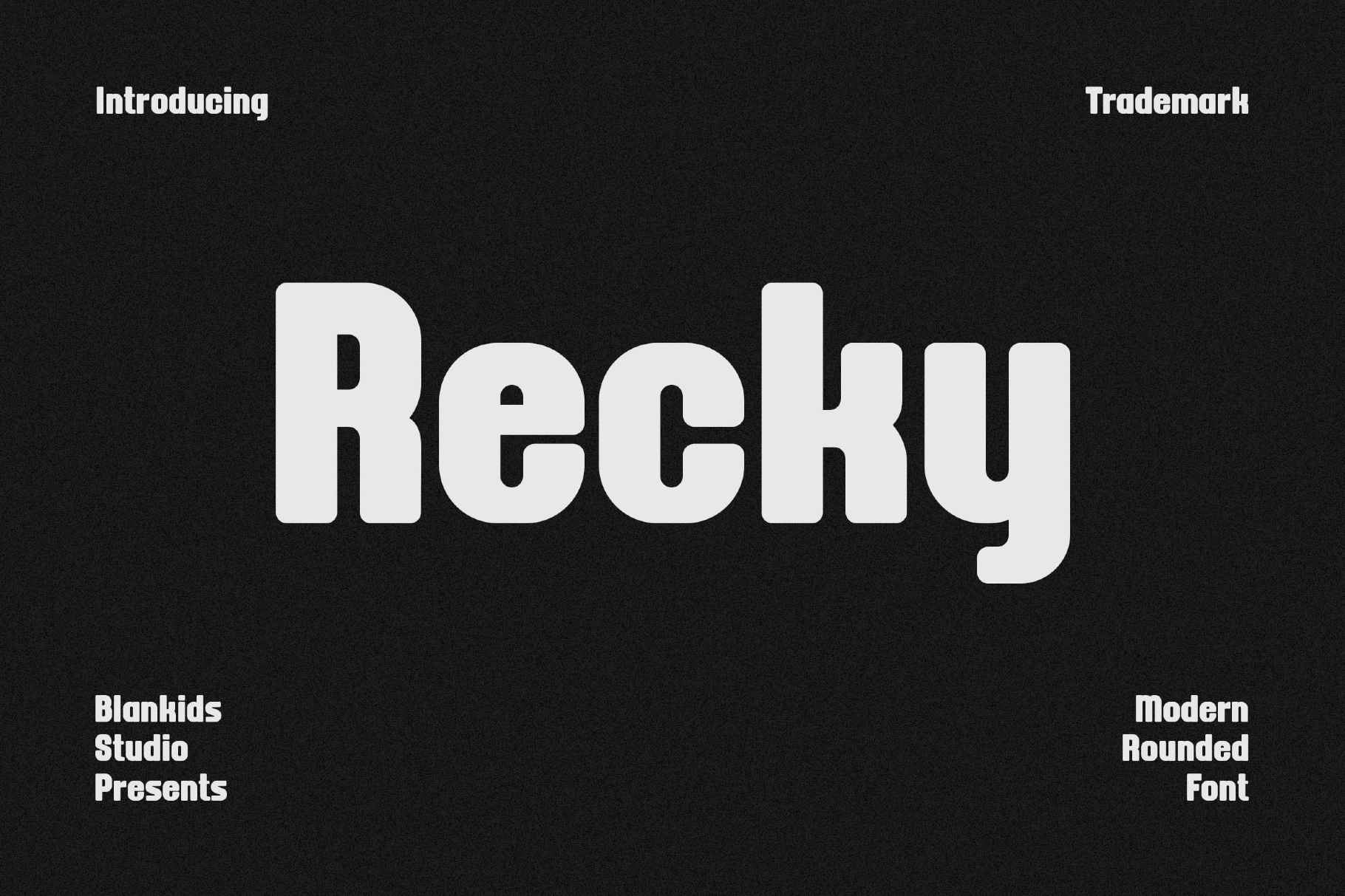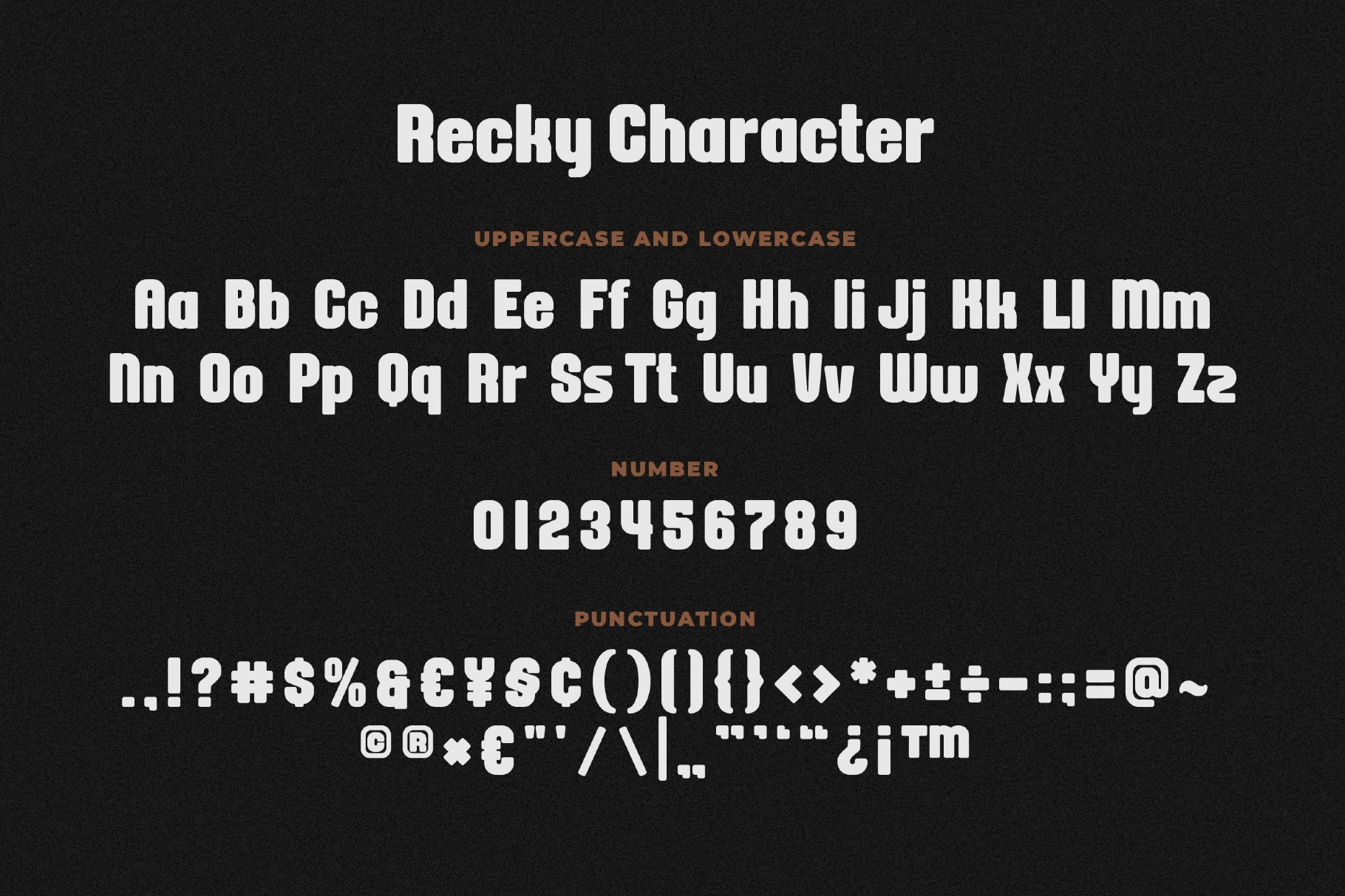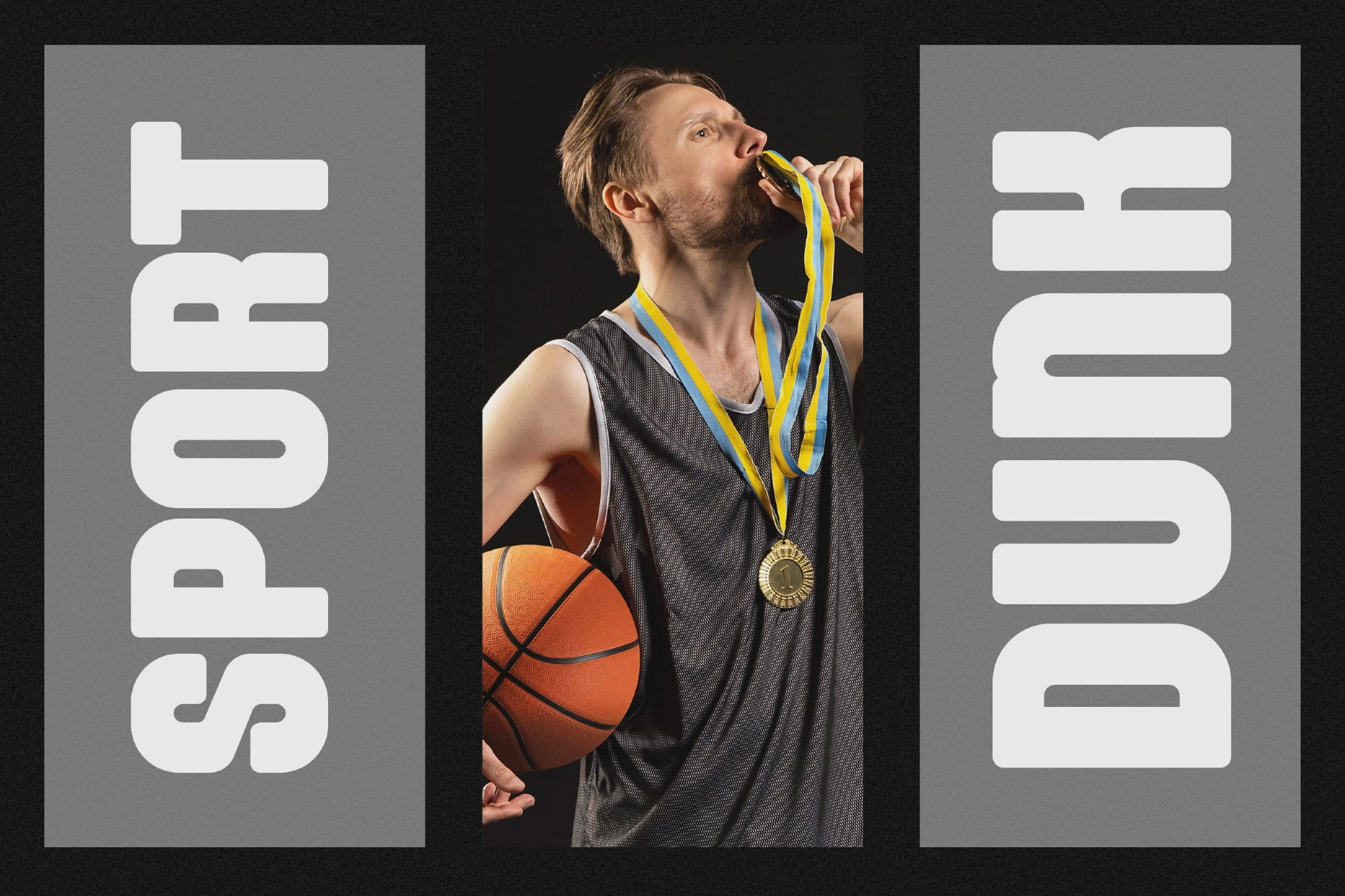
Recky - Modern Rounded Font
This rounded display font is chunky, soft-edged, and made for big type that wants the room without shouting. Heavy letterforms, compact spacing, and pill-shaped cuts give it a friendly graphic look with a sporty streak.
Recky works well for book covers, posters, packaging, merchandise, logotypes, sports branding, kids’ apparel, sticker designs, game graphics, event flyers, social media headers, badges, and more. It is a strong pick for designs that need clear lettering, upbeat character, and a bit of retro mascot energy.